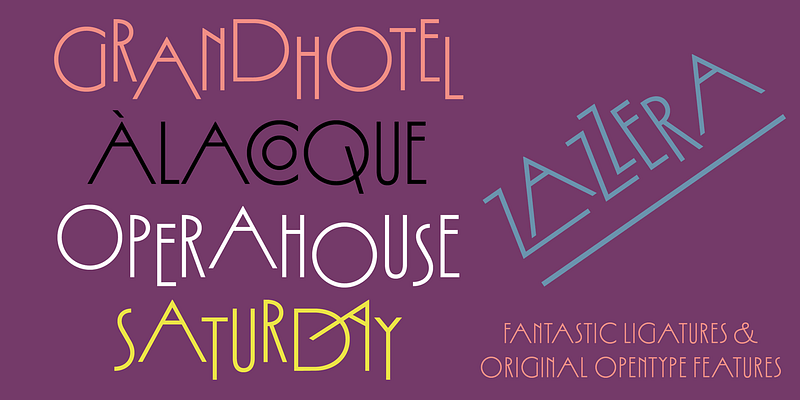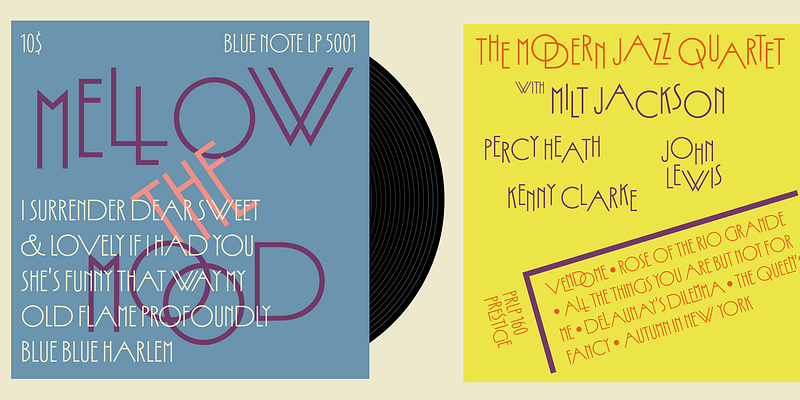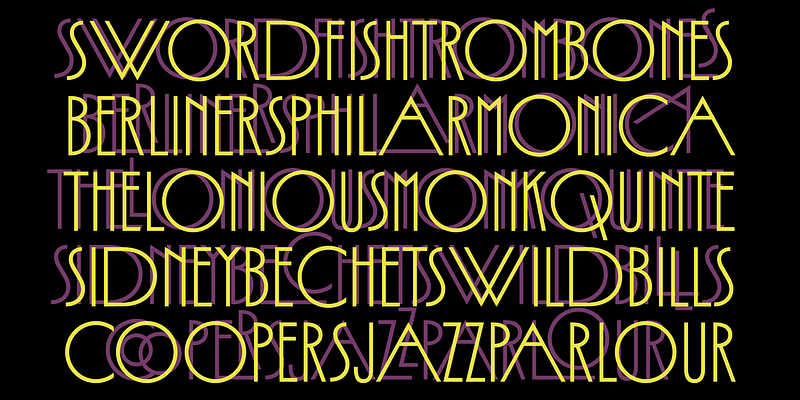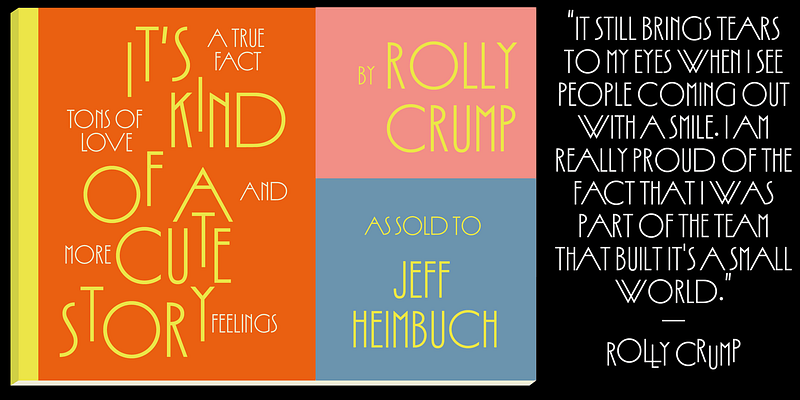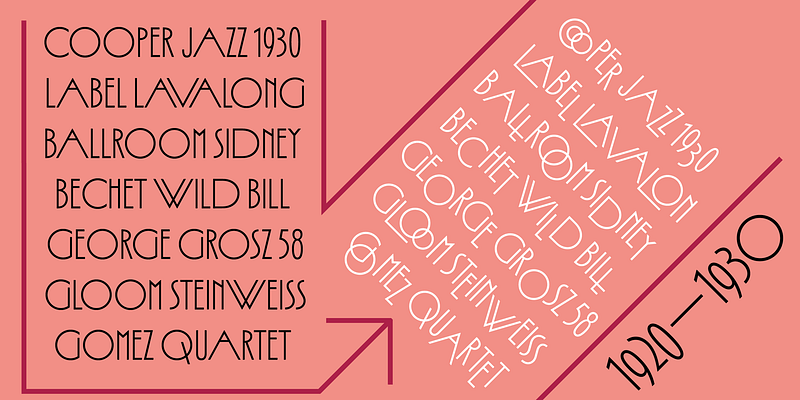
Swordfish is an all-caps geometric sans for display, branding and titling. Inspiration for its design came from 1920s and 30s avant-garde typefaces and jazz record covers of the 40s and 50s.
Swordfish unites two 20th-century typeface trends: geometric letterforms of varied proportions and ‘jumping baselines’, typical of early jazz album covers.